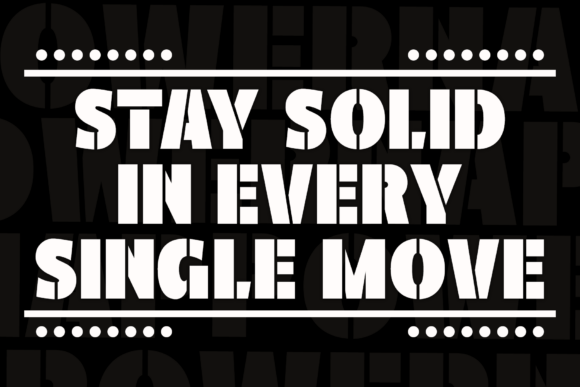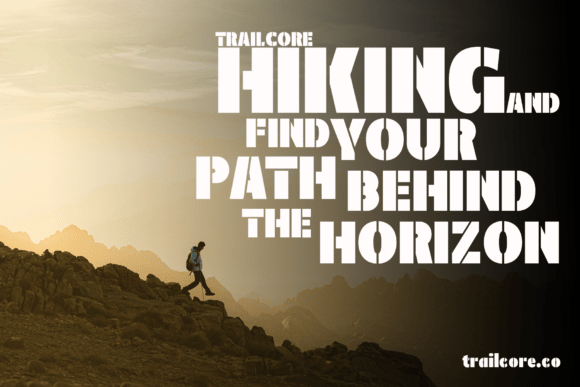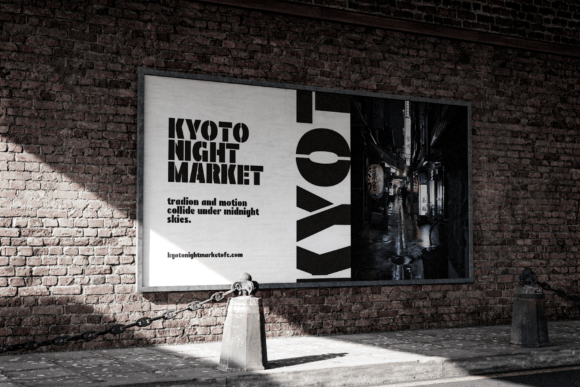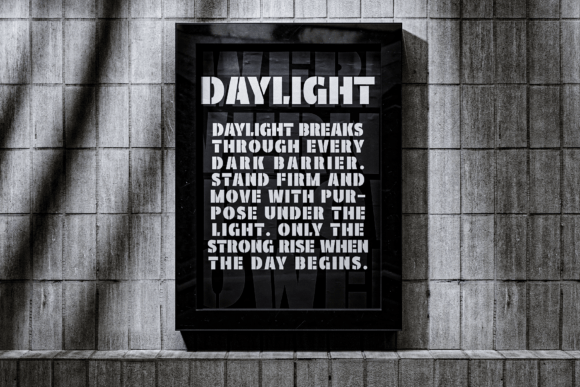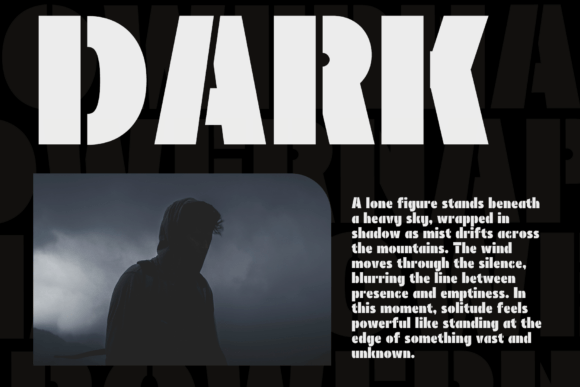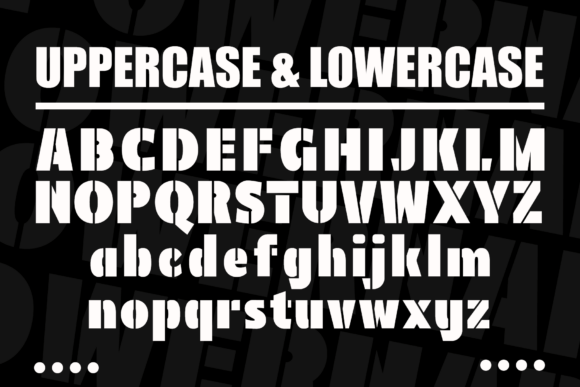
Introduction to Powernap Font
Powernap is a bold stencil display font designed with strong geometric shapes and sharp cut-out details.
The structured letterforms create a powerful and industrial visual style, making it highly recognizable in large-scale compositions Its high contrast and solid construction ensure excellent visibility, especially in headlines and impactful layouts.